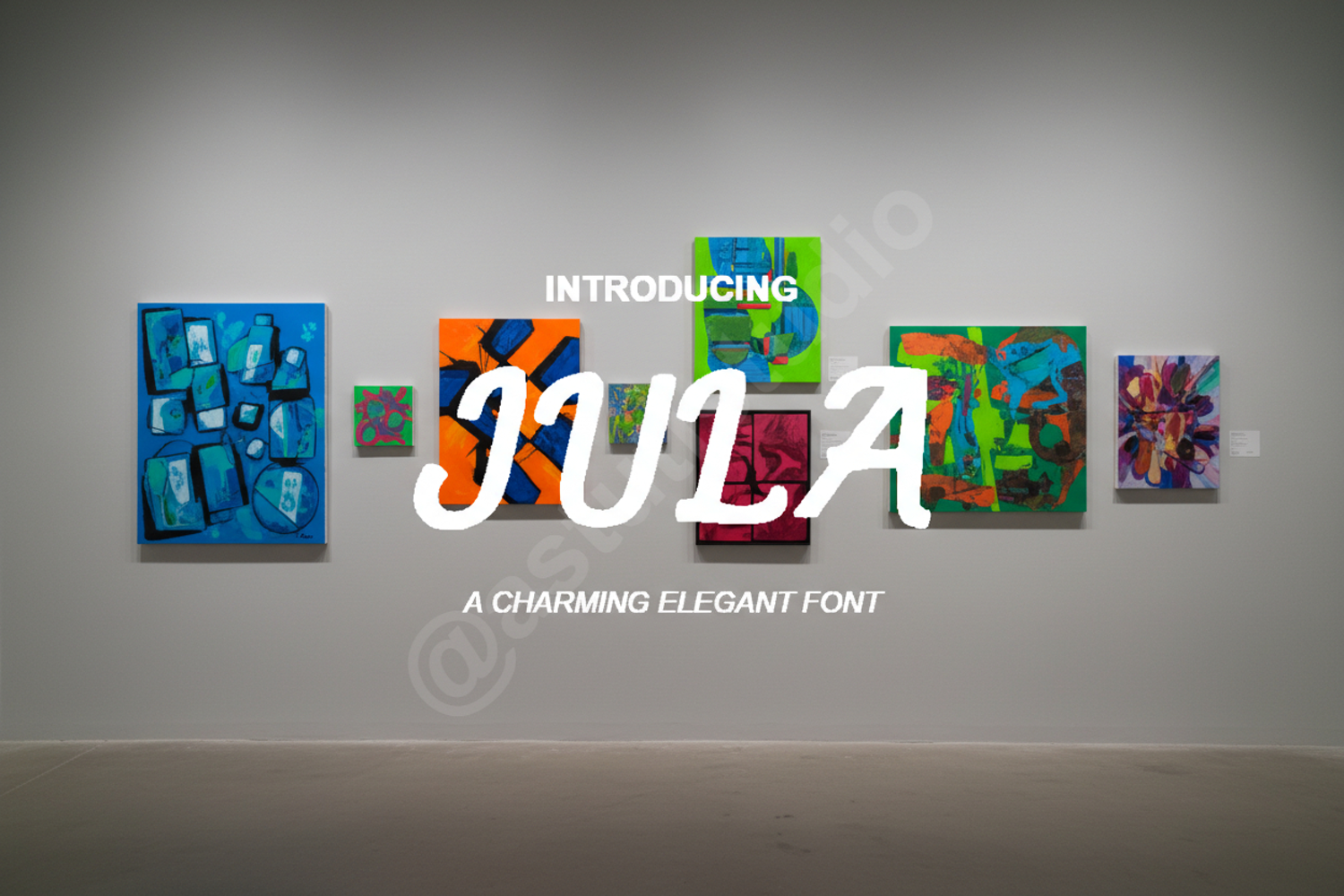
Jula - Elegant Modern Serif Typeface
Jula
Introduction:
Experience the perfect harmony of timeless class and contemporary design with Jula. This premium serif font has been meticulously crafted to provide a sophisticated touch to any creative project. With its refined strokes and balanced proportions, Jula is an essential tool for designers who aim to deliver high-end, professional results.
- Comprehensive set of standard ligatures
- Full multilingual character support
Optimized Use Cases:
- Luxury Branding and Visual Identity
- High-end Editorial and Magazine Layouts
- Elegant Wedding Invitations and Stationery
- Professional Logo Design and Wordmarks
- Sophisticated Social Media Graphics
- Stylish Website Headers and Digital Content